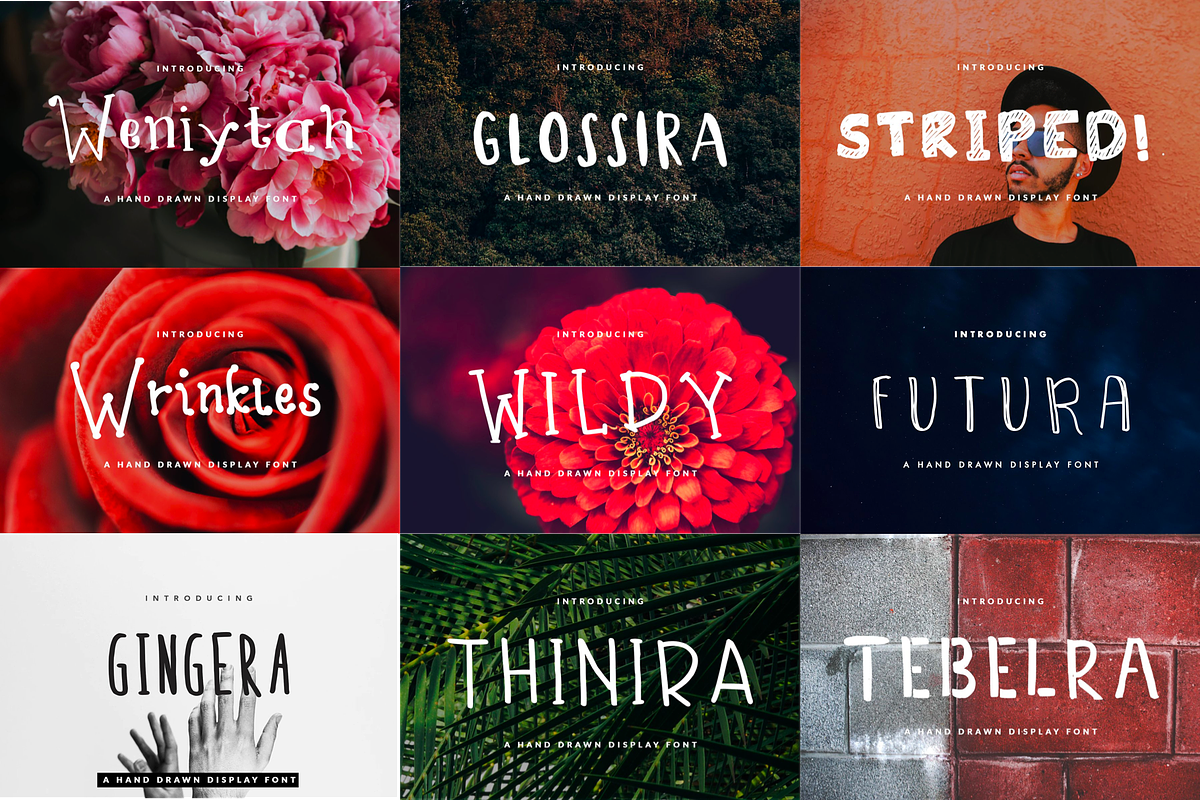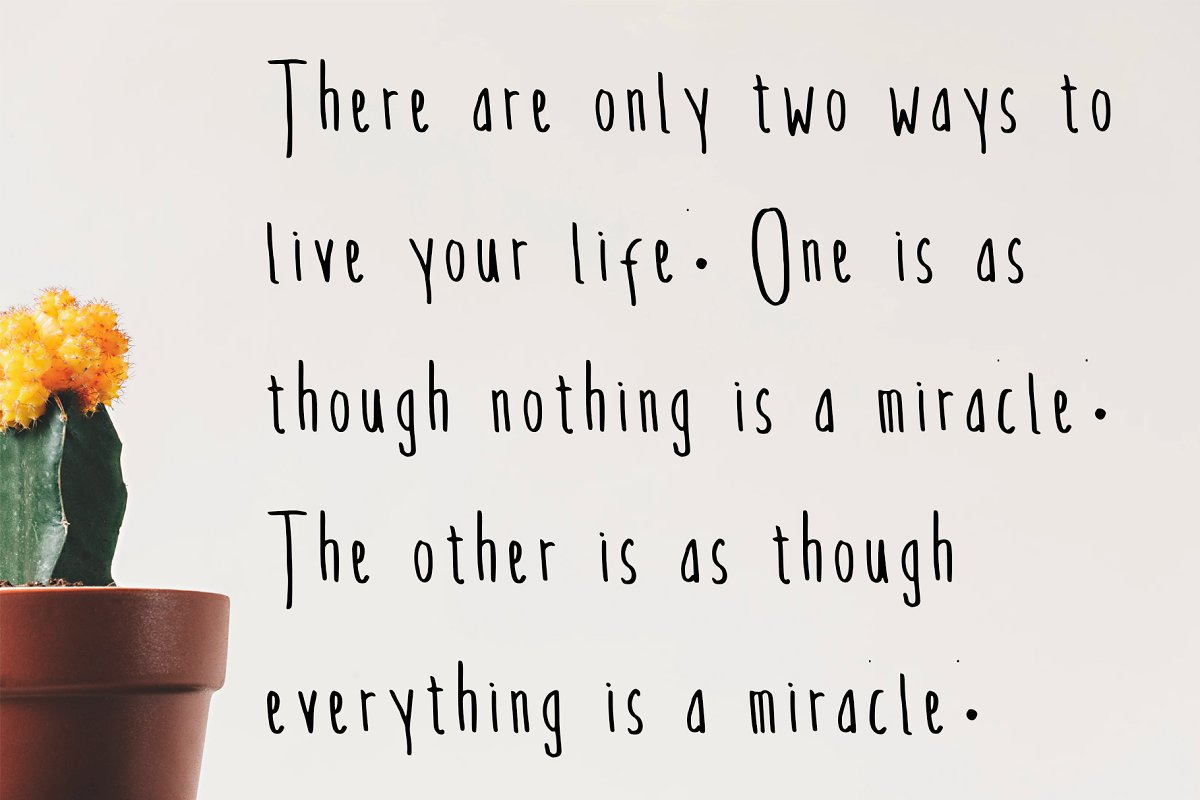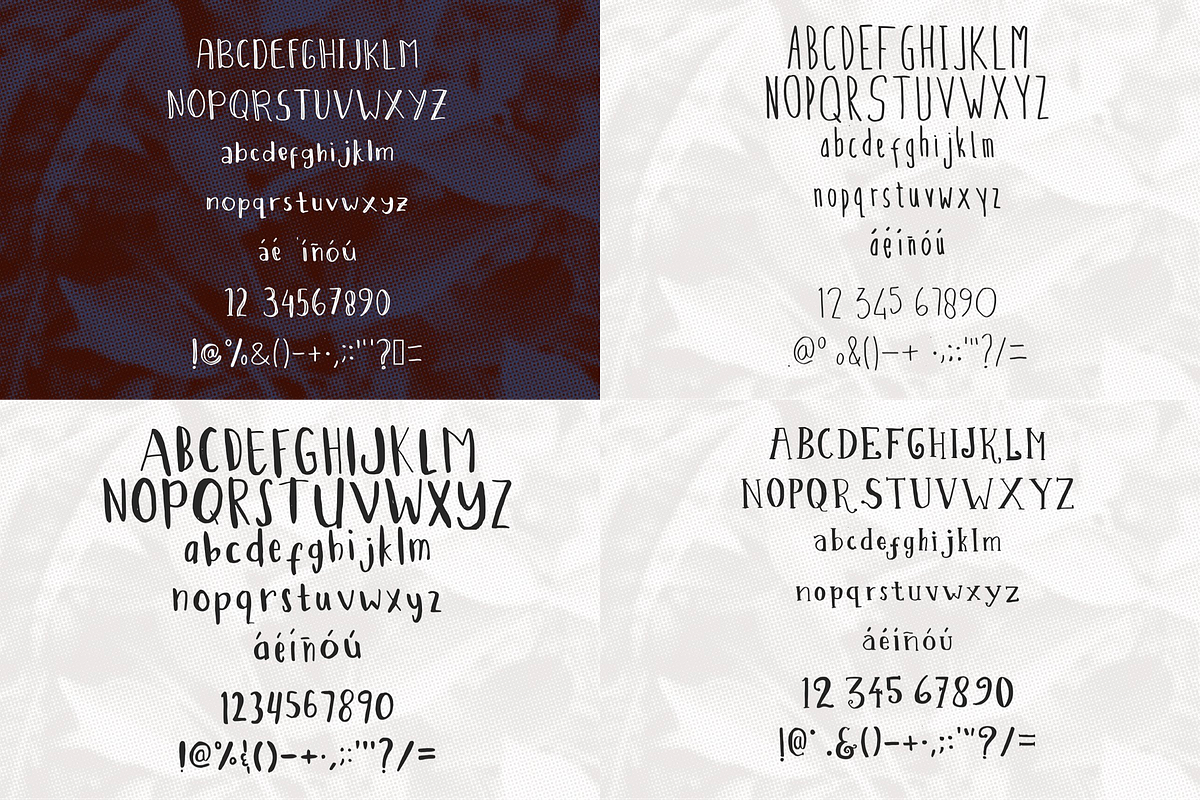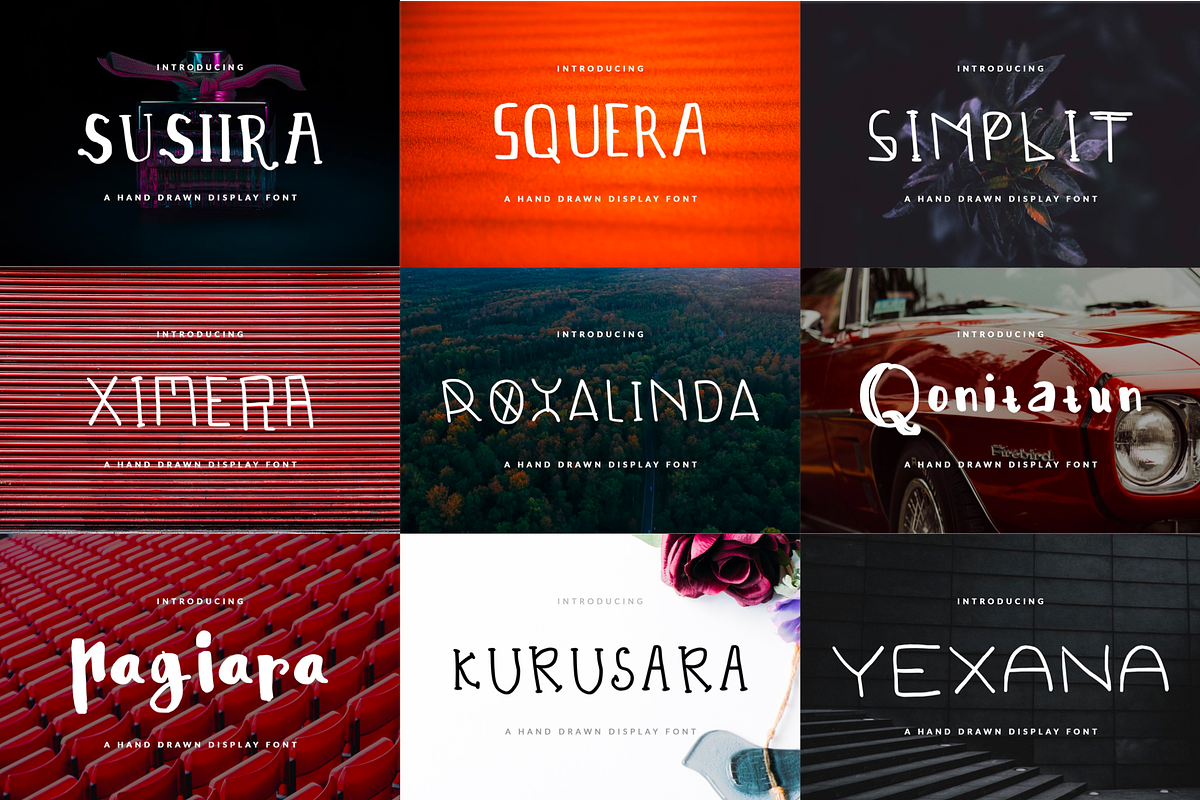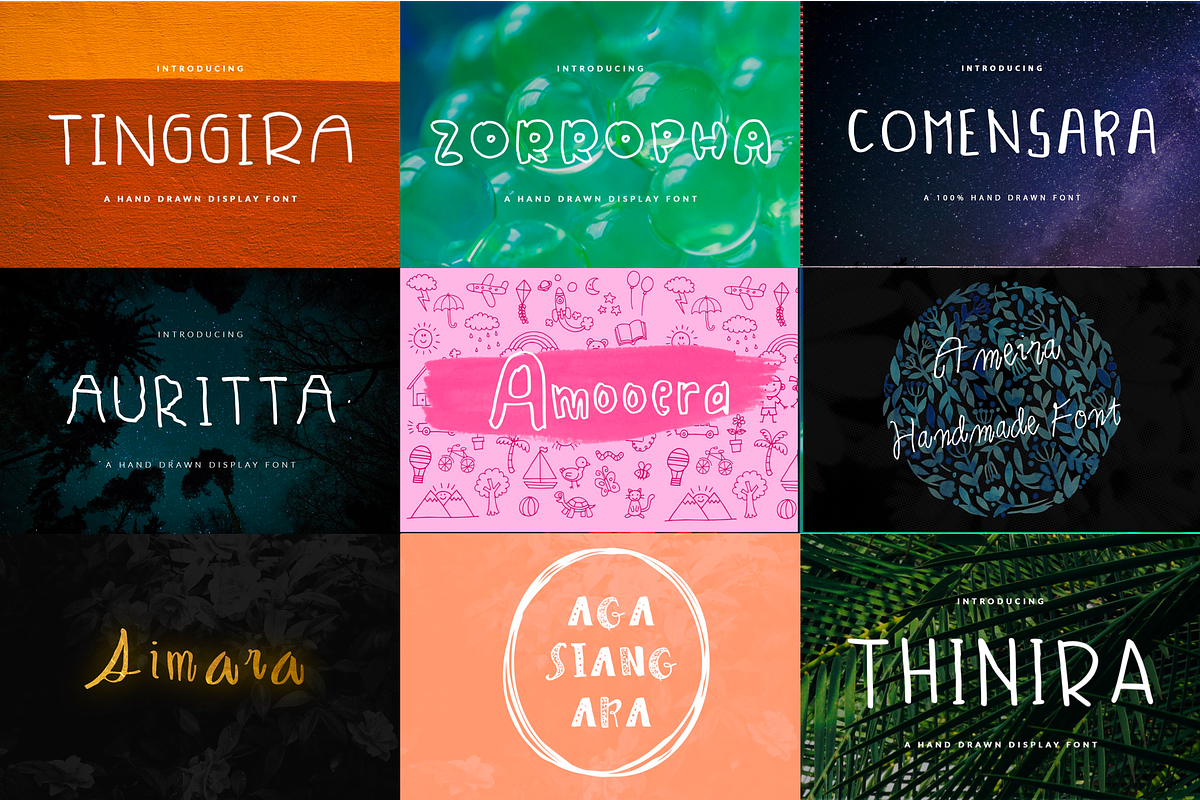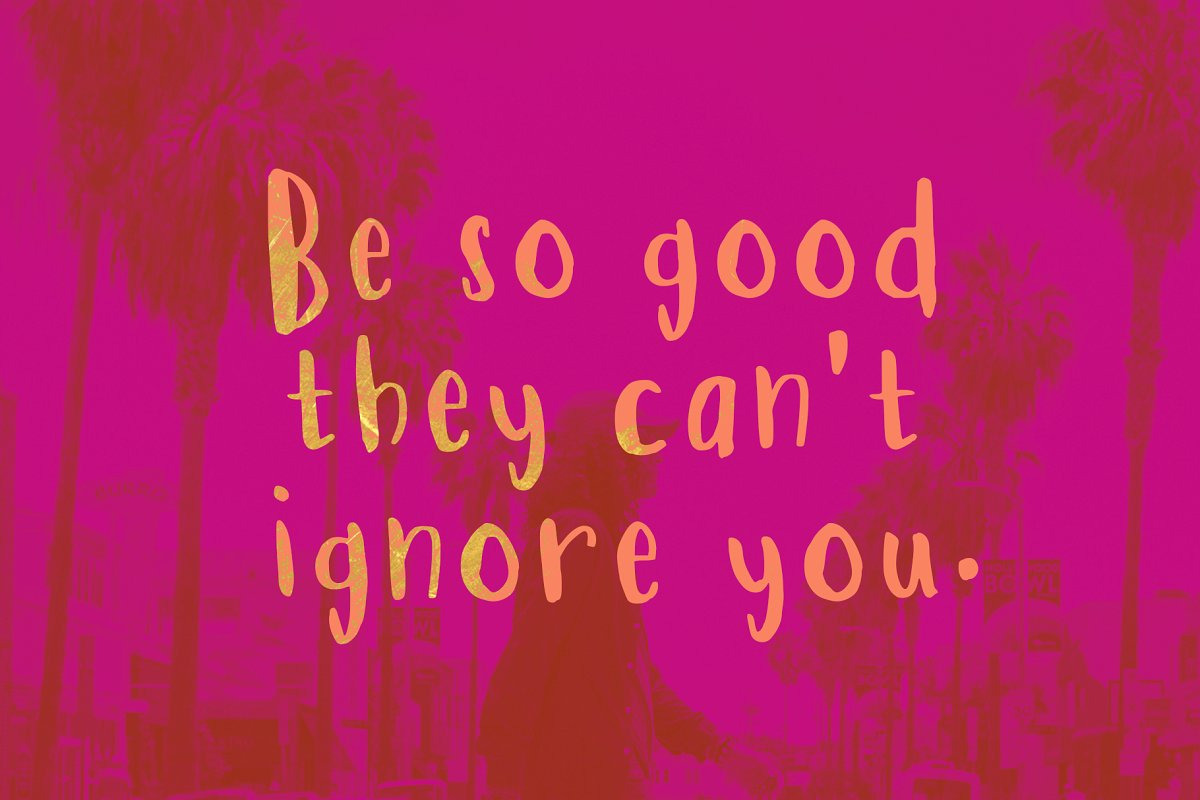
26 Handwritten Fonts Bundle
Save your 99% money $$$ by purchasing this Big Bundle of Handwriting fonts. Handwriting font don't have to be about swirly letters. In this hand-drawn font bundle, it's block capitals that add a hand-written touch. If you tired about those swirly and same things fonts these fonts was your perfect couple.You can use these fonts as child book font, fun party invitation, unique coffee shop's menu list and other cool stuffs.
ZORROPHA BUBBLE FONT HEADER -
YEXANA FONT FOR HEADER & BOOK -
XIMERA DISPLAY FONT FOR HEADER -
WRINKLE FONT FEMININE CHICK & FUN -
WILDY FONT FEMININE & FUN -
WENIYTAH FONT GIRLY & FUN -
TINGGIIRA FONT BOOK & CHILDISH -
THINIRA FONT HEADER & BOOK -
TEBELLRA FONT Heading & Bold -
SUSIIRA FONT CHILDISH & GIRLY -
SQUERA Font For Header & Book Text -
Simplicitic Font For Header -
Stripiiera Font For Header -
ROXALINDA FONT DISPLAY -
Qonitatun Font Display Feminine -
Pagiara Font Feminine & Header -
Kurussara Font Display & Childish -